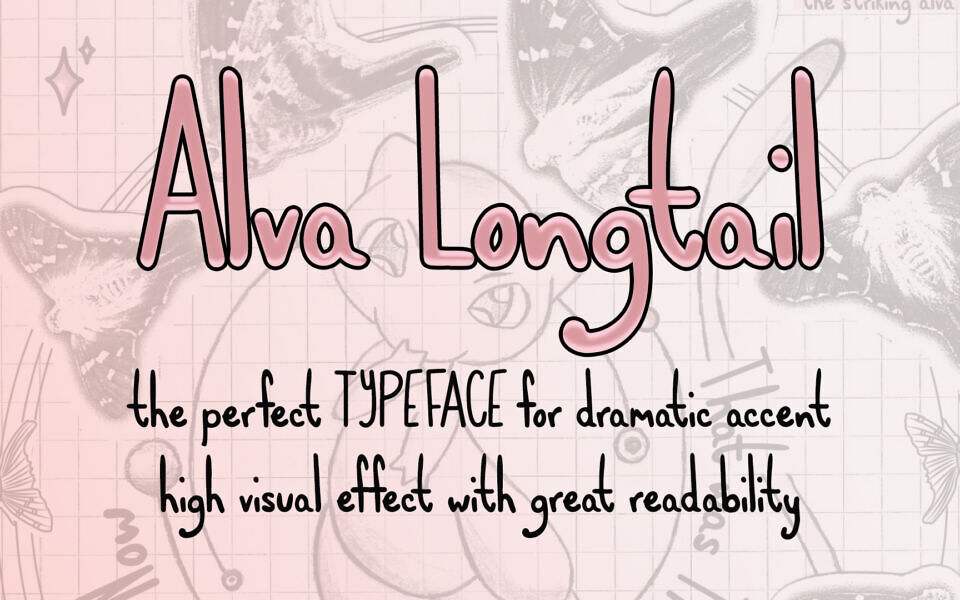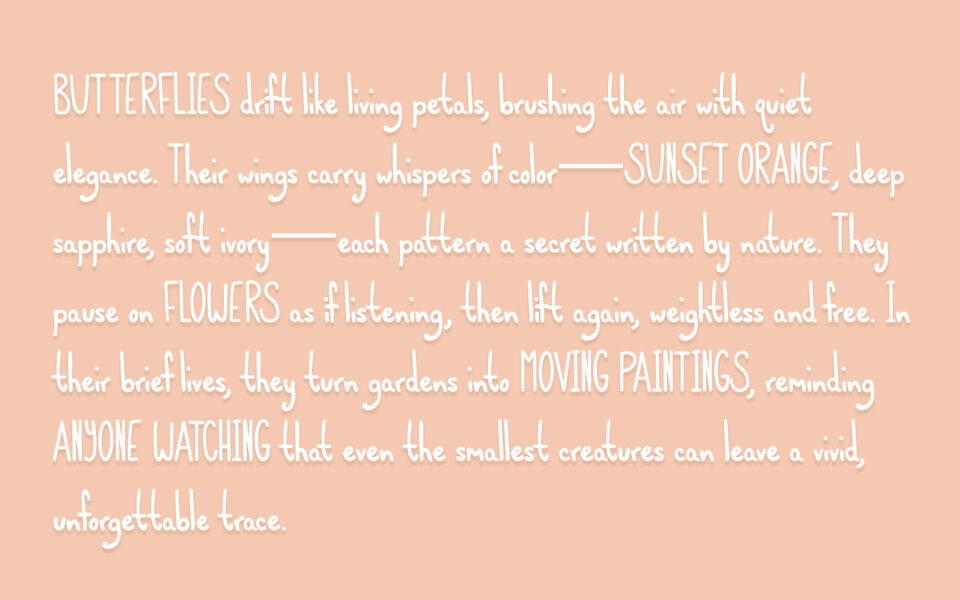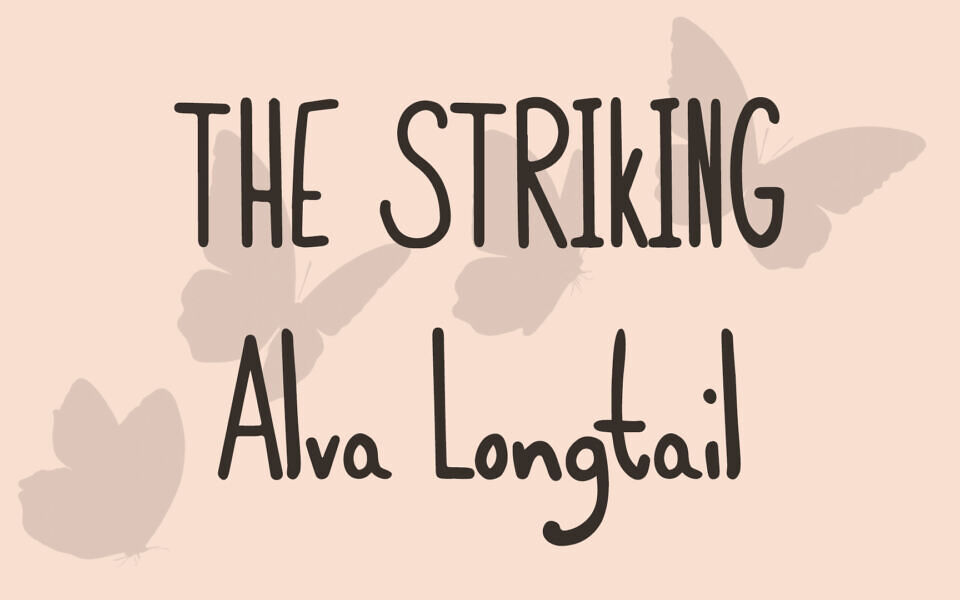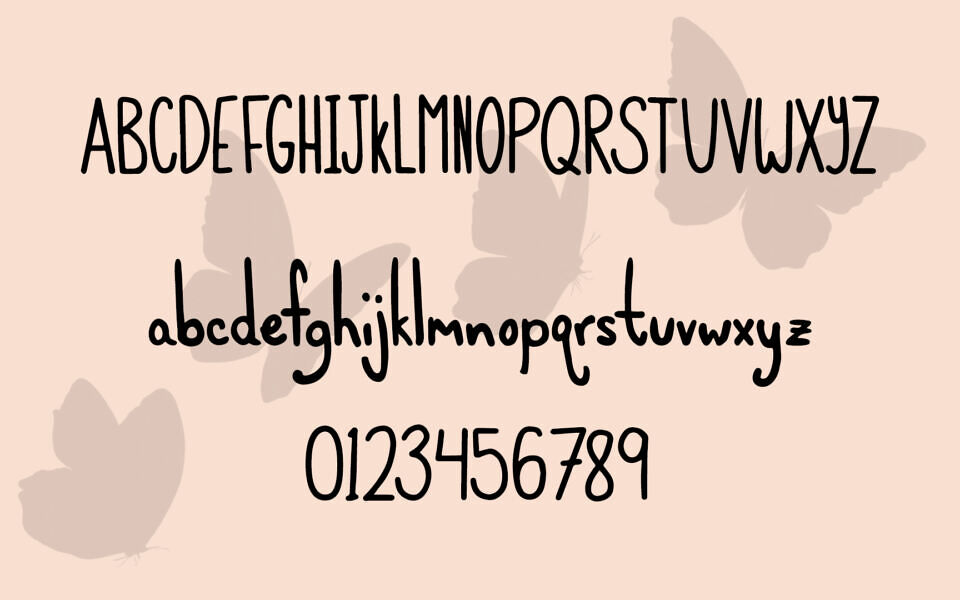
Alva Longtail is a modern script typeface that blends elegant calligraphy with natural handwritten flow. Its smooth curves and fluid connections create a refined, expressive look, ideal for invitations, branding, and decorative design. The font includes a complete set of uppercase and lowercase characters, designed to mimic authentic handwriting with stylish consistency and versatility across print and digital applications.